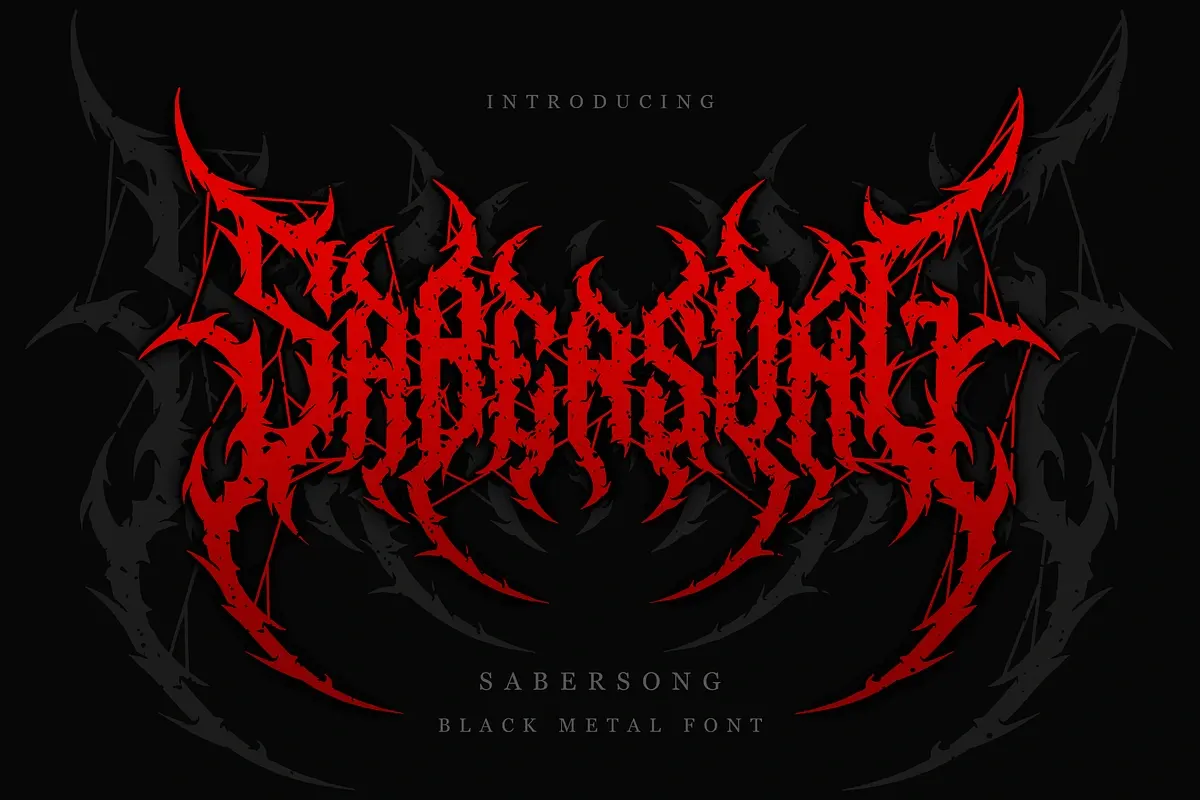
Sabersong | Black Metal Font Vol.3 Free Download
Bold, edgy, and full of attitude, Sabersong | Black Metal Font Vol.3 Free Download is a dramatic and powerful display typeface inspired by the raw energy and intensity of black metal music. Perfect for album covers, posters, logos, merchandise, and anything with a dark, rebellious theme, this font brings an aggressive and gritty feel to your typography.
With its sharp, jagged edges and bold letterforms, Sabersong captures the essence of underground music culture and dark aesthetics. Whether you're working on a music-related project, designing for an alternative brand, or creating promotional materials with a bold statement, this font will make sure your design stands out.